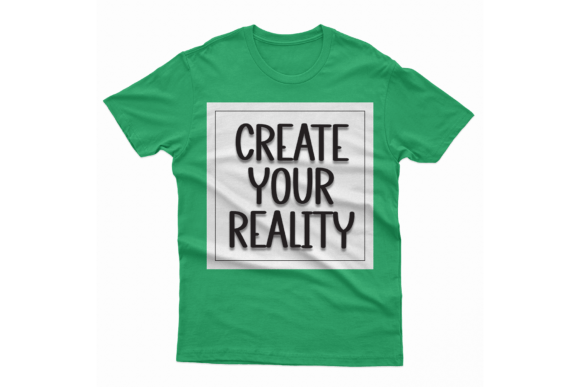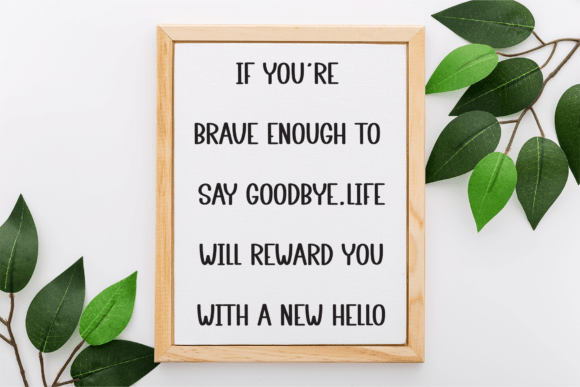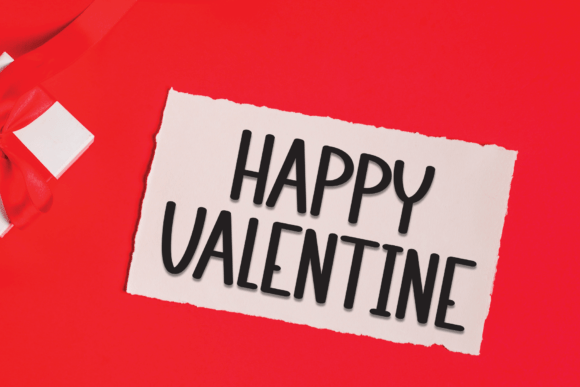
Introduction to Simple Romantic Font
Lively and full of personality, this display handwritten font brings the charm of natural handwriting to bold, eye-catching designs.
With its playful curves and casual style, it’s perfect for logos, posters, packaging, quotes, and social media graphics It strikes the perfect balance between readability and character, giving your work a friendly, handcrafted feel.
Why Choose Simple Romantic Font?
Simple Romantic Font offers exceptional quality and versatility, making it a valuable addition to your design toolkit. Whether you’re creating for personal projects or commercial use, Simple Romantic Font delivers professional results.